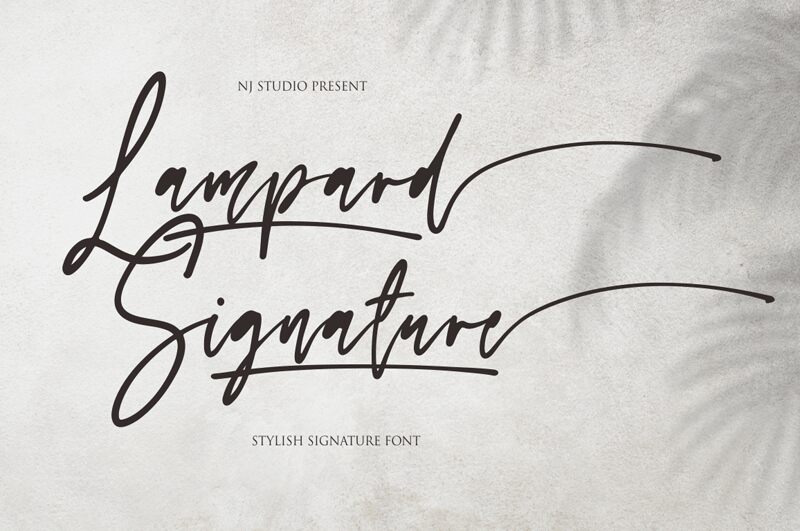
Lampard Signature
Lampard Signature, crafted by NJ Studio, is a captivating handwritten font that exudes a sense of elegance and effortless charm. Its fluid strokes and natural variations create a distinctive, personal aesthetic, evoking the essence of a thoughtfully penned signature. This font's alluring appeal lies in its ability to infuse a touch of genuine, heartfelt expression into any design.
Lampard Signature's versatility makes it a compelling choice for a wide range of applications, from branding and packaging to stationery and editorial design. Its organic, handcrafted quality lends itself particularly well to projects that seek to convey a personal, bespoke feel, such as wedding suites, greeting cards, and custom invitations. Equally at home in both digital and print mediums, this font seamlessly integrates into a variety of design contexts, elevating the overall visual impact.